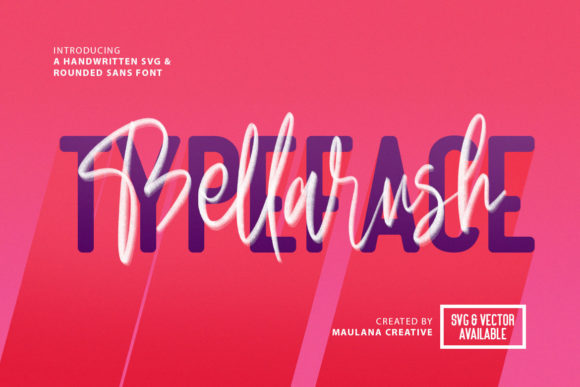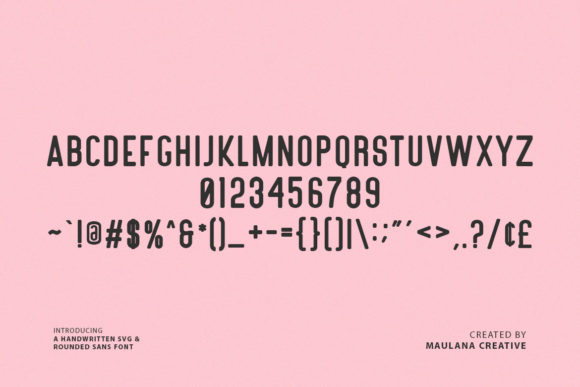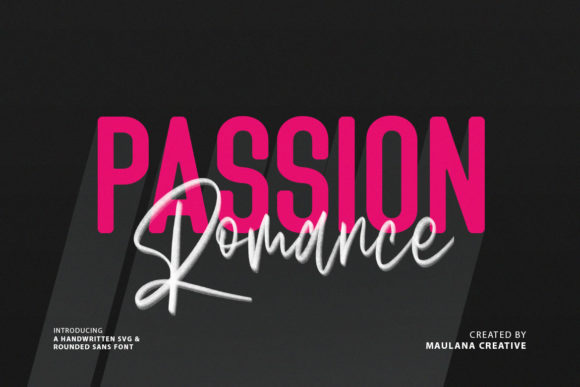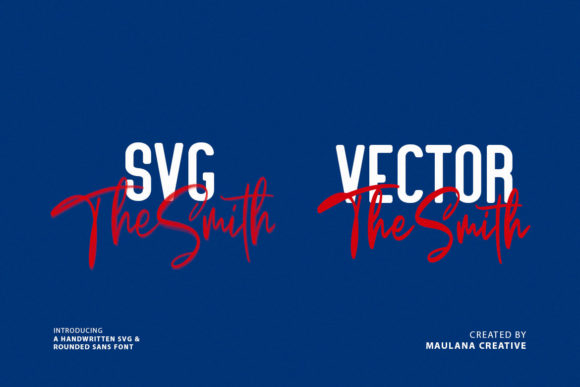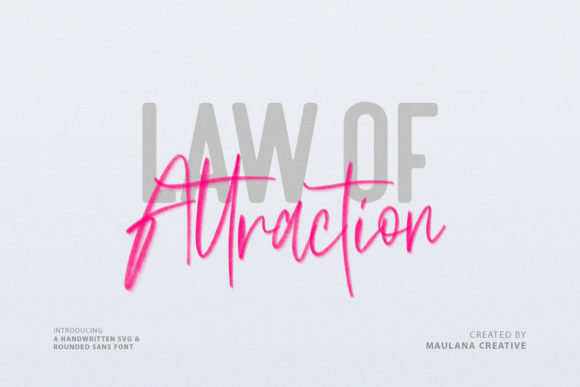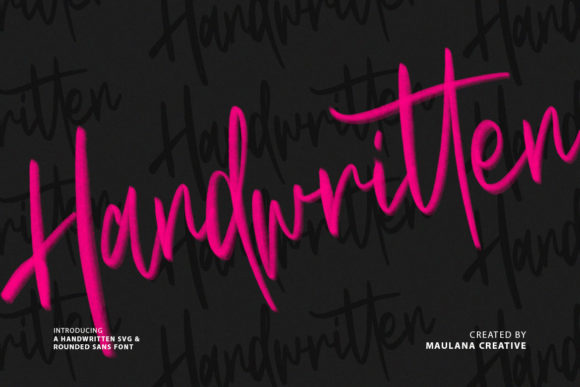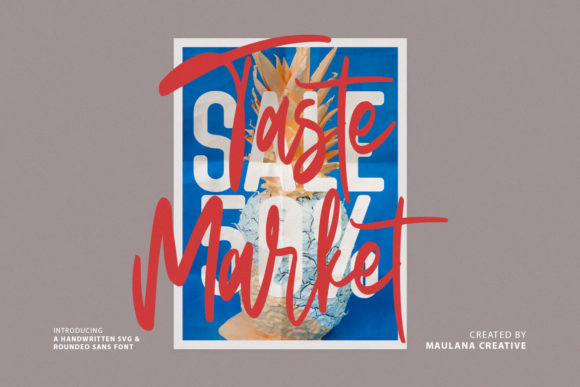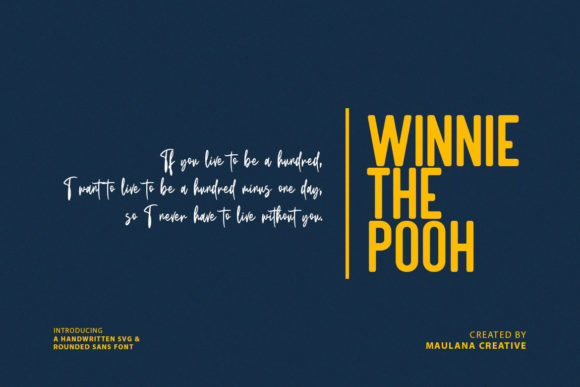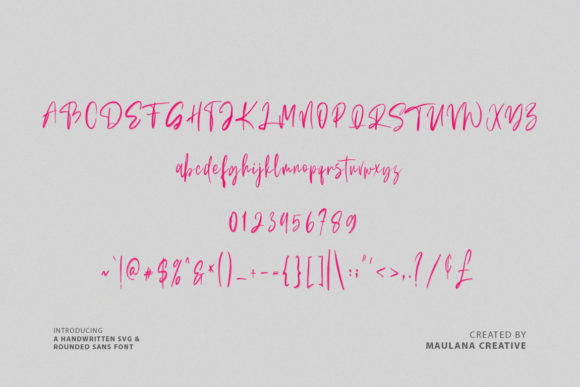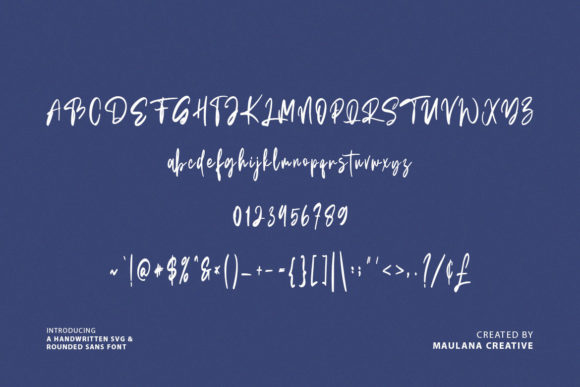
Bellarush Font
About Bellarush Font
Bellarush is a carefully crafted font duo consisting of a gorgeous script and a bold sans serif font. Combine them to achieve outstanding design results!